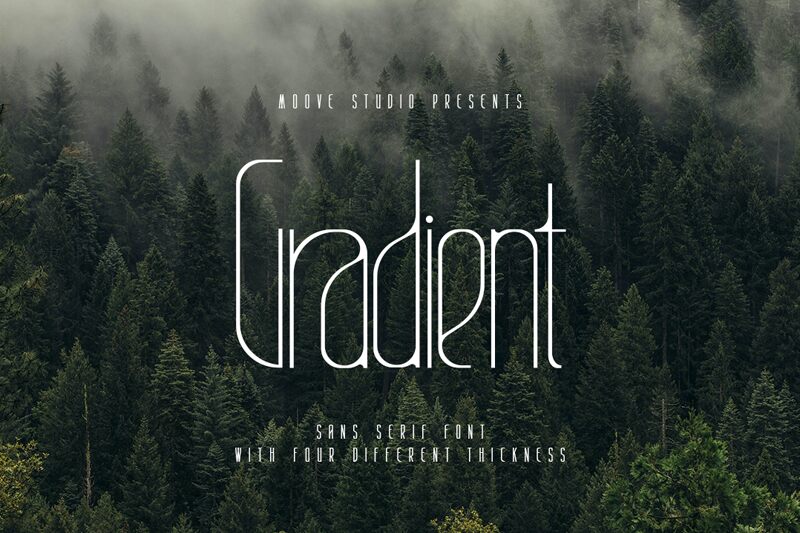
Gradient Thin
Gradient Thin font by Moove Studio is a free ultra‑thin condensed sans serif typeface from the Gradient family. Its needle‑fine strokes and tall, poised proportions create a sleek, weightless rhythm, with soft curves that feel more drawn with wire than ink. The result is a whisper‑light presence that still reads cleanly at large sizes, adding polish without bulk.
Using Gradient Thin, headlines and wordmarks gain a refined, fashion‑forward edge—think beauty branding, runway posters, luxury packaging, tech splash screens, event invitations, and album covers. Set it big to let those hairline contours breathe, and pair with a sturdy, neutral sans for body text to ground the composition. This free font turns minimalism into a statement.